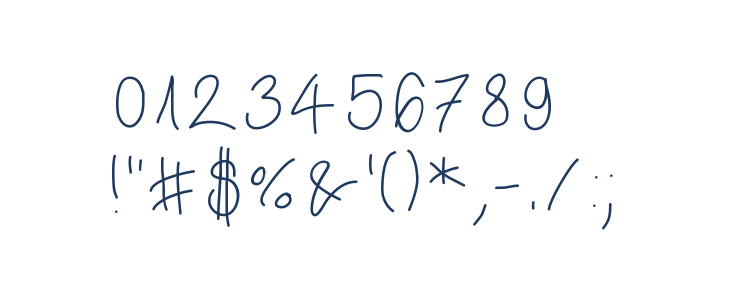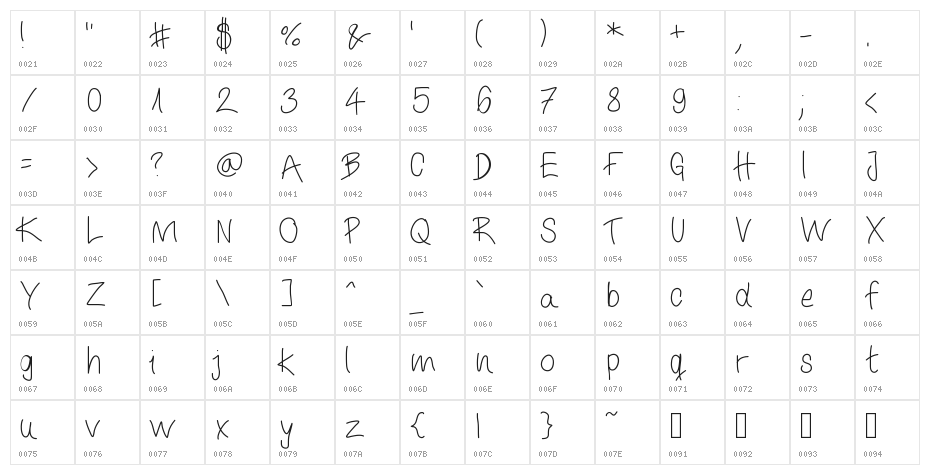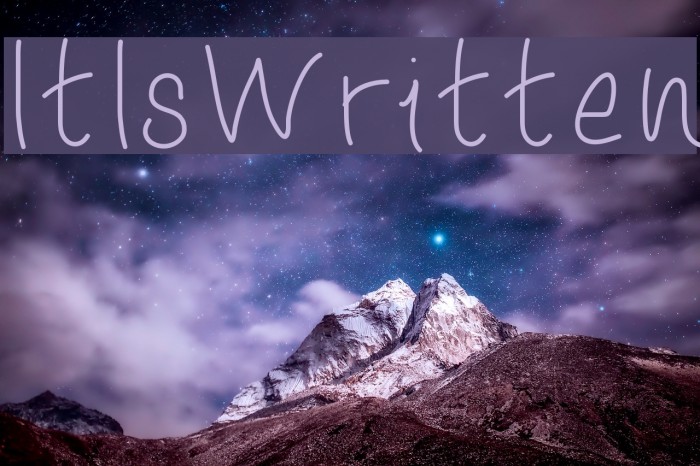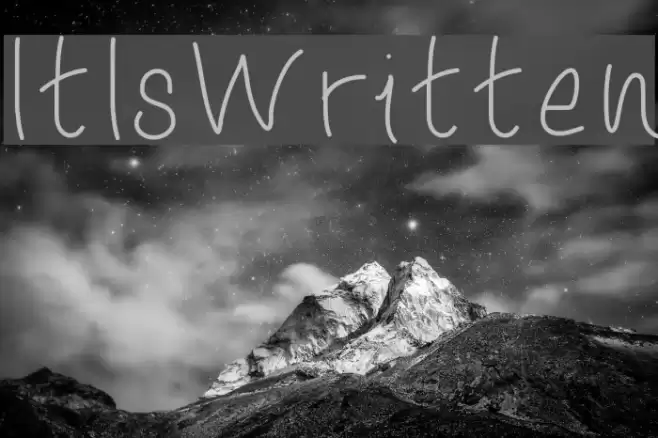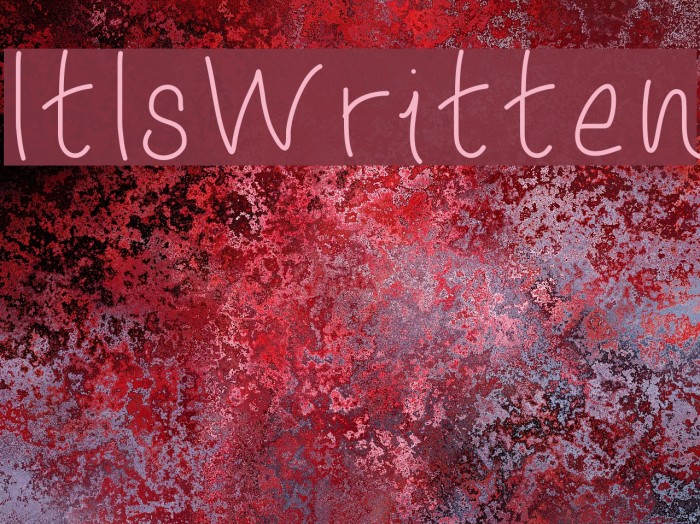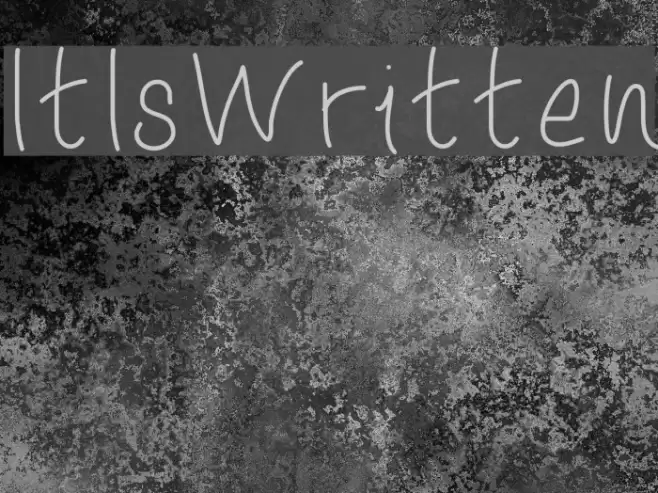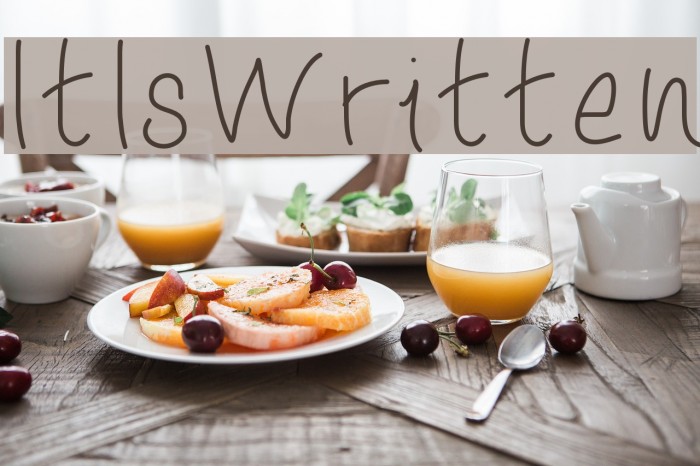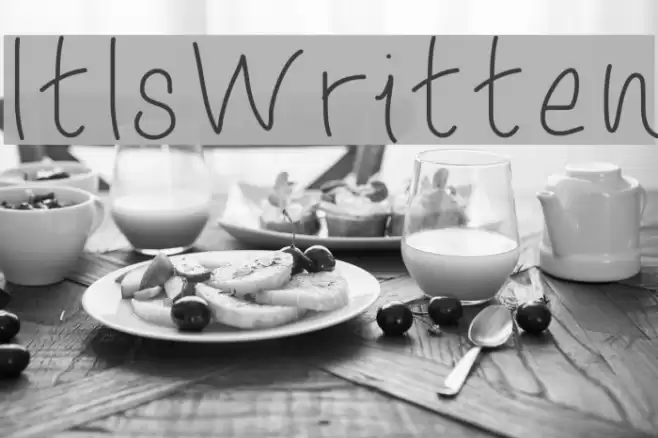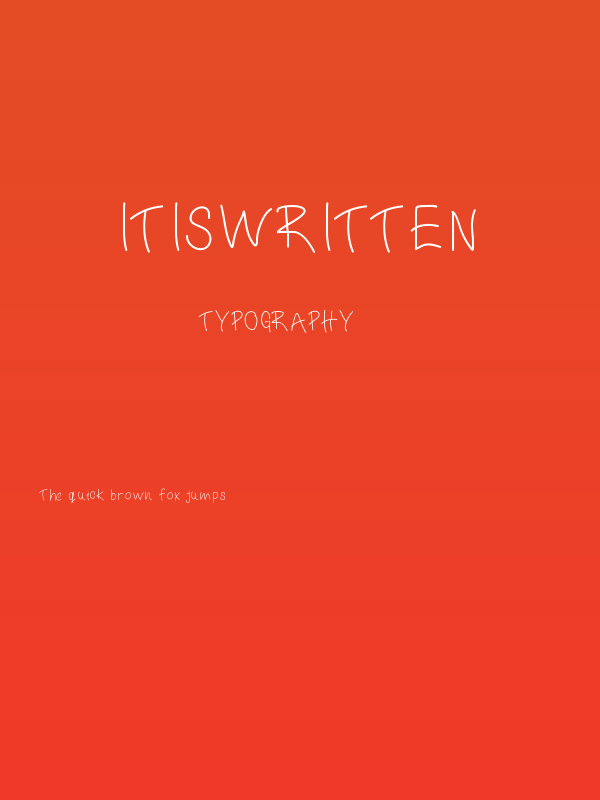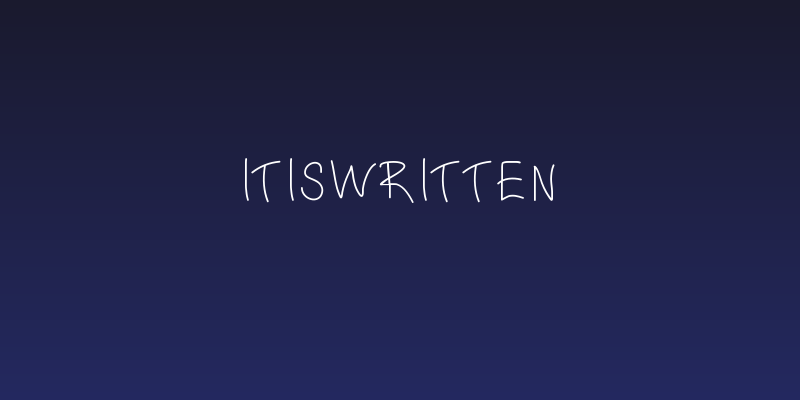
ItIsWritten Font
ItIsWritten Description
This font features a playful and casual handwritten style, characterized by its smooth and flowing letterforms. The uppercase and lowercase letters are consistent in their informal appearance, with a slight slant that adds to the relaxed feel. The numerals and special characters maintain this cohesive style, making it versatile for various applications. The strokes are uniform in thickness, providing a clean and approachable look. This font is ideal for projects that require a personal touch, such as invitations, greeting cards, and informal branding.
| Use Case | Headlines, Informal text, Personal projects |
| Proposed Projects | Ideal for invitations, greeting cards, informal branding, and personal projects. |